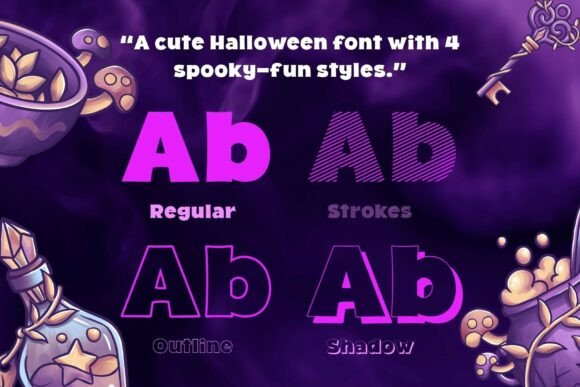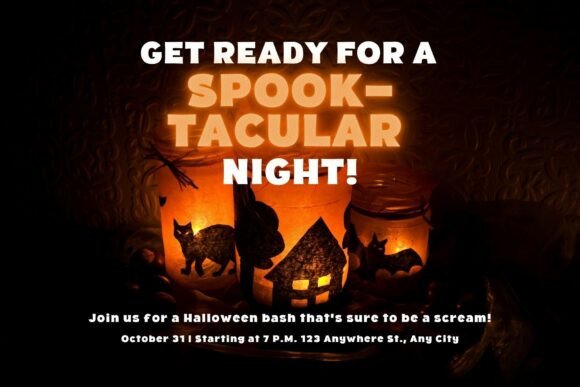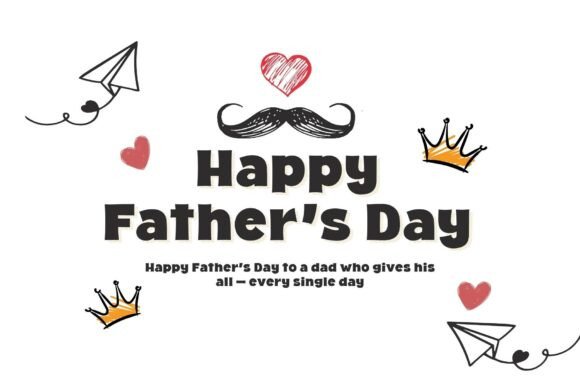
Introduction to Fox Potion Font
As designers, we’ve all been there – staring at a blank canvas, waiting for the perfect spark to ignite our creative juices. For me, that spark often comes from discovering a unique and captivating font that sets my imagination ablaze. And that’s exactly what happened when I stumbled upon the enchanting Fox Potion Font. This magical display font is a game-changer for designers looking to add a touch of whimsy and fantasy to their projects.
With its four charming styles – Regular, Outline, Shadow, and Layered – the Fox Potion Font offers unparalleled flexibility, making it an invaluable design resource for any creative project. Whether you’re designing titles, game interfaces, or children’s book pages, this font delivers a fun and immersive experience that’s sure to captivate your audience.
Key Features of Fox Potion Font
Honest Review: Fox Potion Font
One of the things that works well with the Fox Potion Font is its unique aesthetic. It’s perfect for creative projects that require a touch of magic or whimsy. The font’s high quality and transparent background make it easy to incorporate into any design.
- ✨ Unique and magical aesthetic
- ✨ High quality and transparent background
- ✨ Perfect for creative projects and design resources
However, I do have to mention a few limitations. The font is only available in a limited number of weights, which may not be ideal for designers who need a wide range of font options. Additionally, the font’s magical theme may not be suitable for all types of projects.
- ⚠️ Limited number of font weights
- ⚠️ May not be suitable for all types of projects
Overall, I’m quite impressed with the Fox Potion Font. It’s a great addition to any designer’s library, and its unique aesthetic makes it perfect for creative projects. If you’re looking for a high-quality font that’s free to download, I’d definitely recommend checking it out.